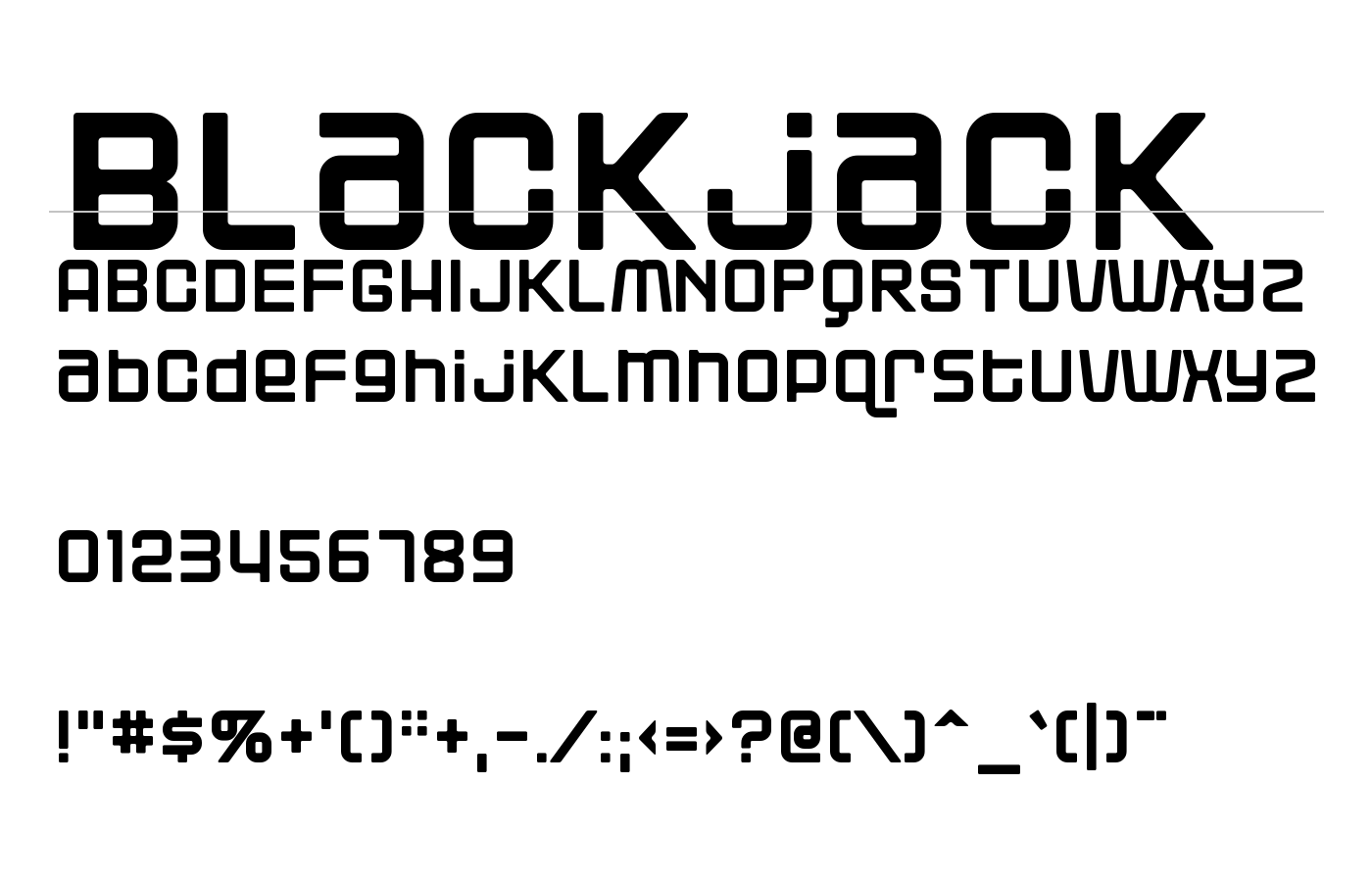
Blackjack is a bold, geometric sans serif font with a futuristic and slightly condensed design. Its clean, uniform strokes and squared shapes give it a modern and tech-savvy feel, making it ideal for headlines, branding, and digital interfaces that seek a bold yet approachable style. This font works well for projects needing a contemporary and strong visual presence, such as tech companies, gaming, and modern advertising.
Blackjack Font